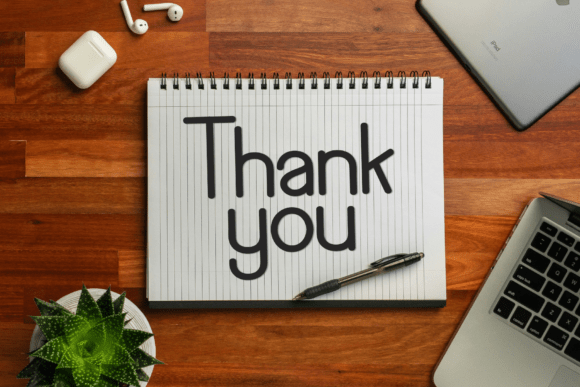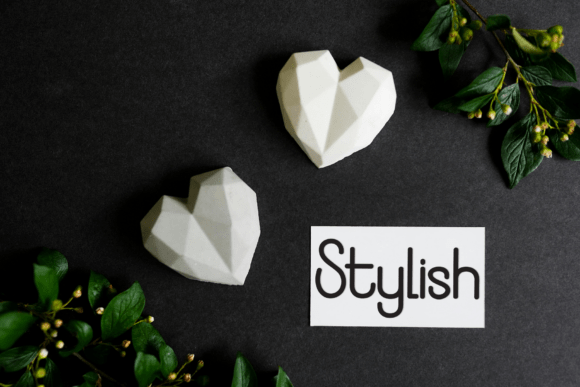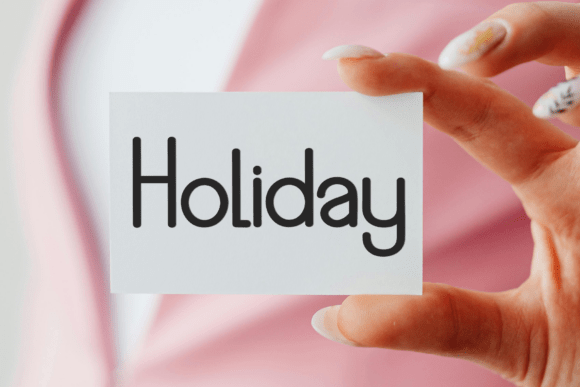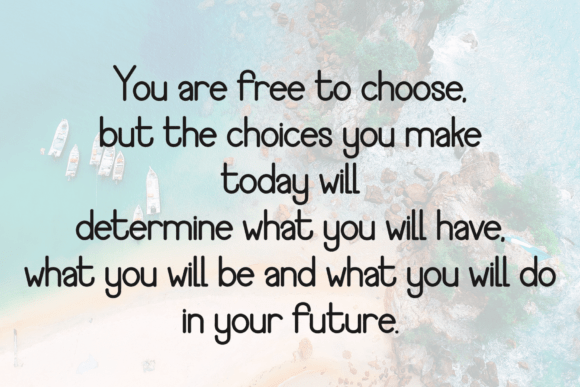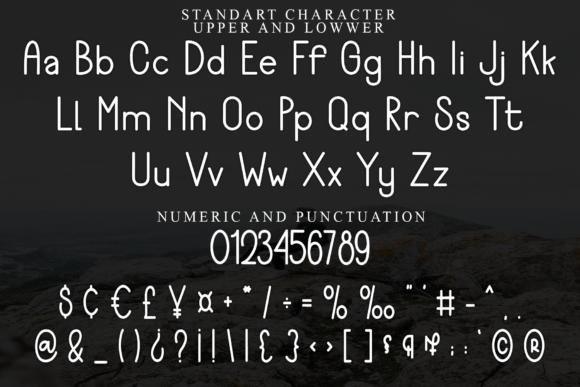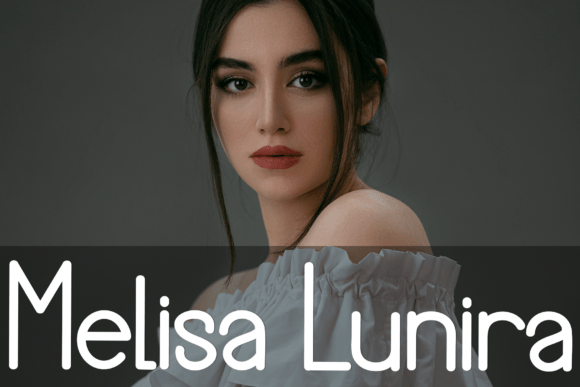
Introduction to Genius Student Font
Do you remember that moment when you finally found the perfect font to bring your creative project to life? For designers, it’s a feeling that’s hard to describe – a mix of excitement and relief, knowing that you’ve found the perfect tool to convey your message. And that’s exactly what we’re going to explore in this article – the Genius Student Font, a beautiful and versatile design resource that’s perfect for a wide range of creative projects.
As a designer, you know how crucial it is to have access to high-quality fonts that can elevate your work and make it stand out from the crowd. The Genius Student Font is one such resource that’s worth exploring, with its soft and unique strokes giving it a special character that’s sure to make your designs appealing to many audiences.
- Unique characteristics include a clean and modern design, perfect for educational and academic purposes.
- Genius Student Font is a versatile and readable font, suitable for use in headings, body text, and titles.
Honest Review: Genius Student Font
As a designer, I’m always on the lookout for high-quality fonts that can elevate my creative projects. Recently, I had the chance to try out the Genius Student Font, and I’m here to share my honest thoughts.
- ✨ The font’s high quality is evident in its clean and modern design, making it perfect for a variety of creative projects.
- ⚠️ The font’s limited character set may be a drawback for designers who need a wide range of glyphs for their projects.
Overall, I’m impressed with the Genius Student Font’s potential. While it may not be perfect, its strengths make it a valuable addition to any design collection. Just be aware of its limitations and use it judiciously.
The Genius Student Font is perfect for:
1. School projects and presentations.
2. Creative portfolios and resumes.
3. Social media graphics and blog posts.
Yes, the Genius Student Font is a high-quality font designed to meet the needs of designers and artists. It features a clear and legible design, making it perfect for use in a variety of creative projects. The font is also designed to be highly versatile, allowing you to use it in a range of design applications, from print to digital media.